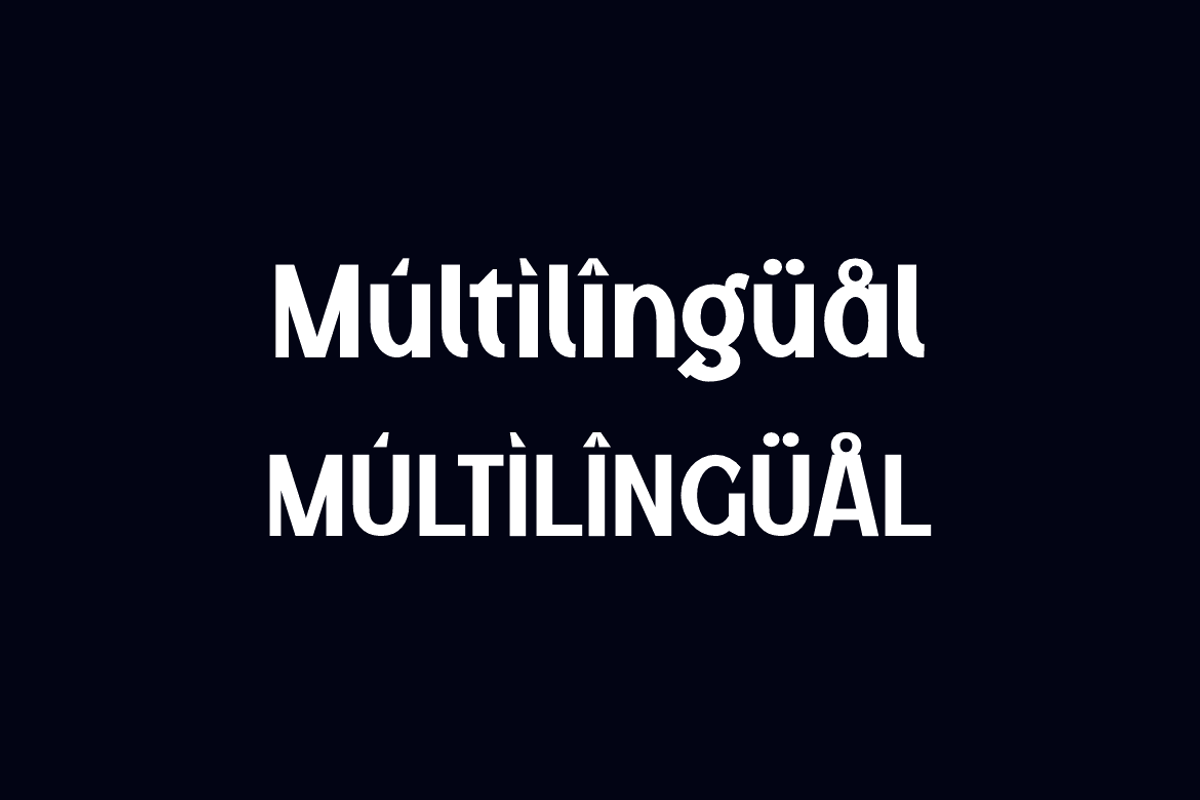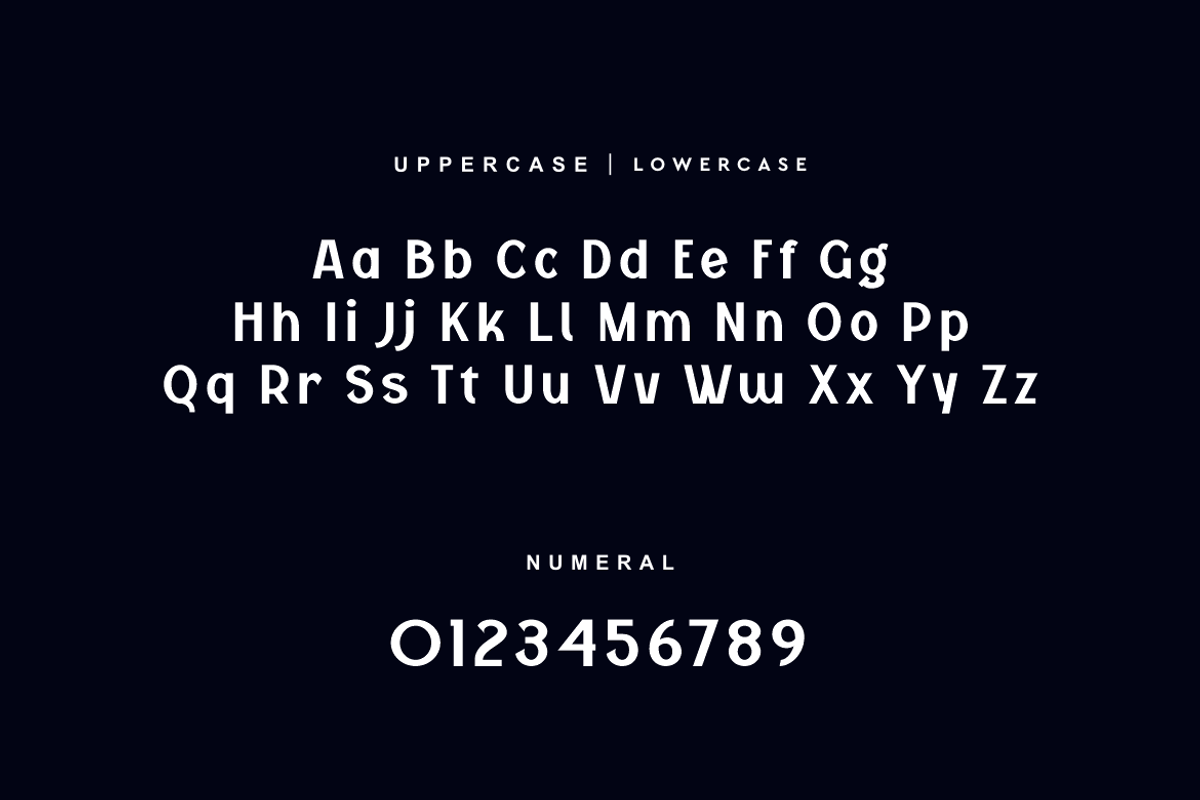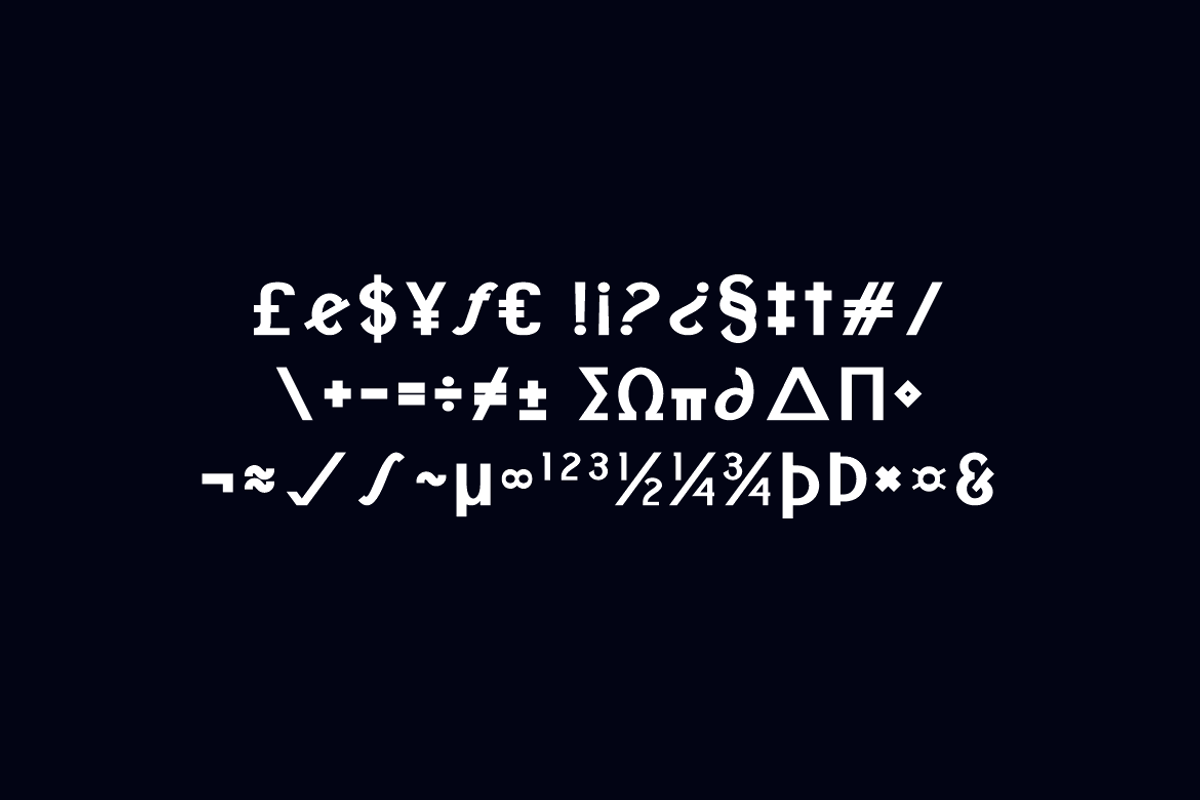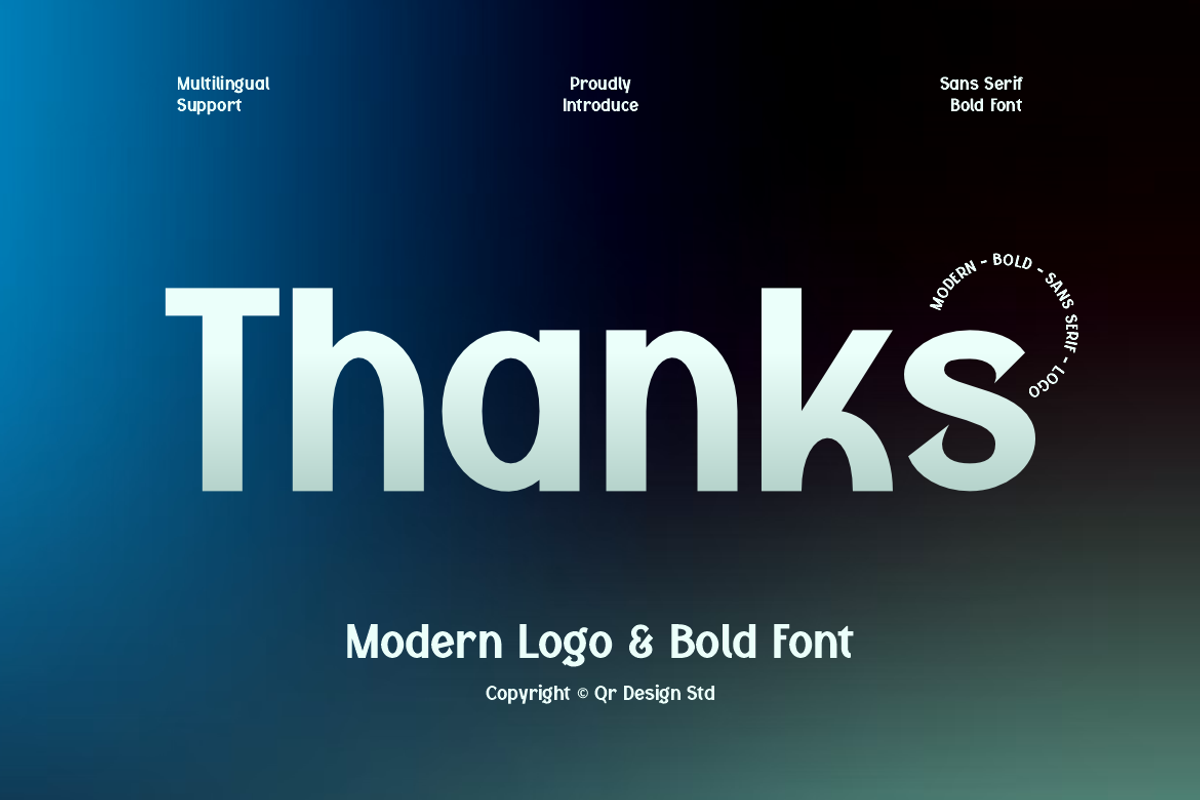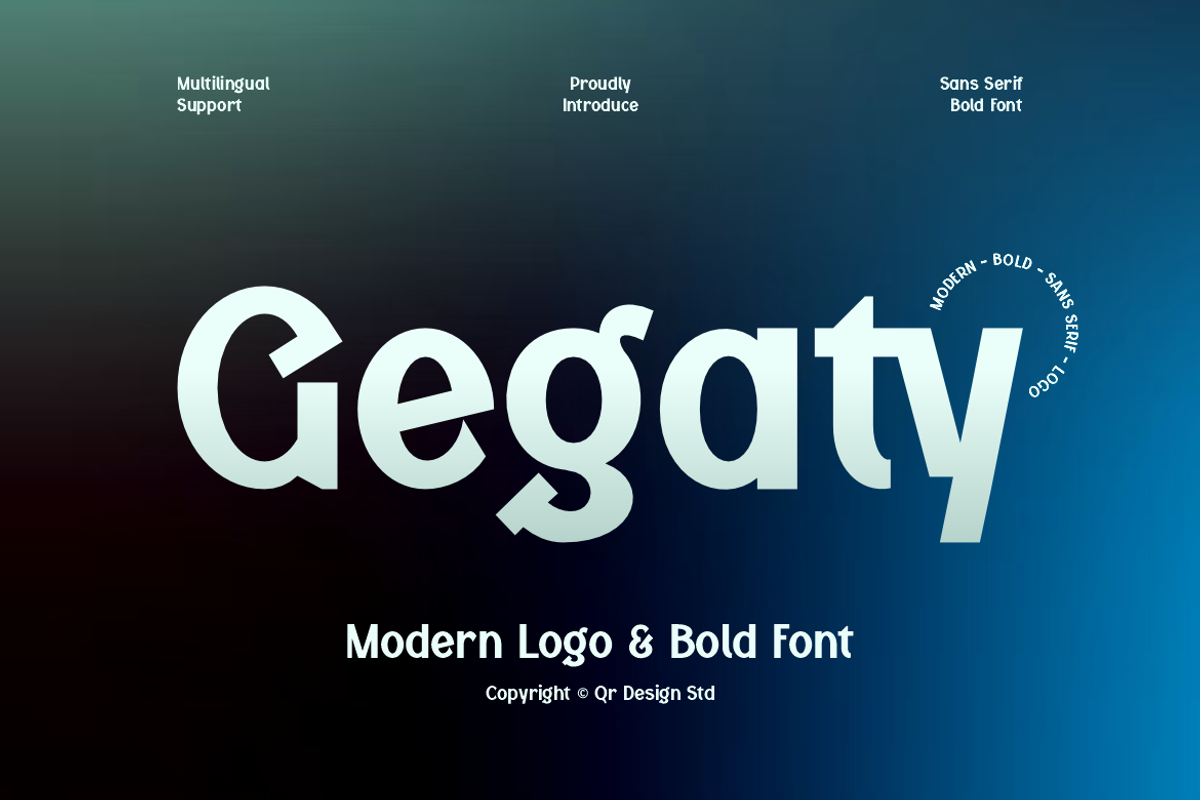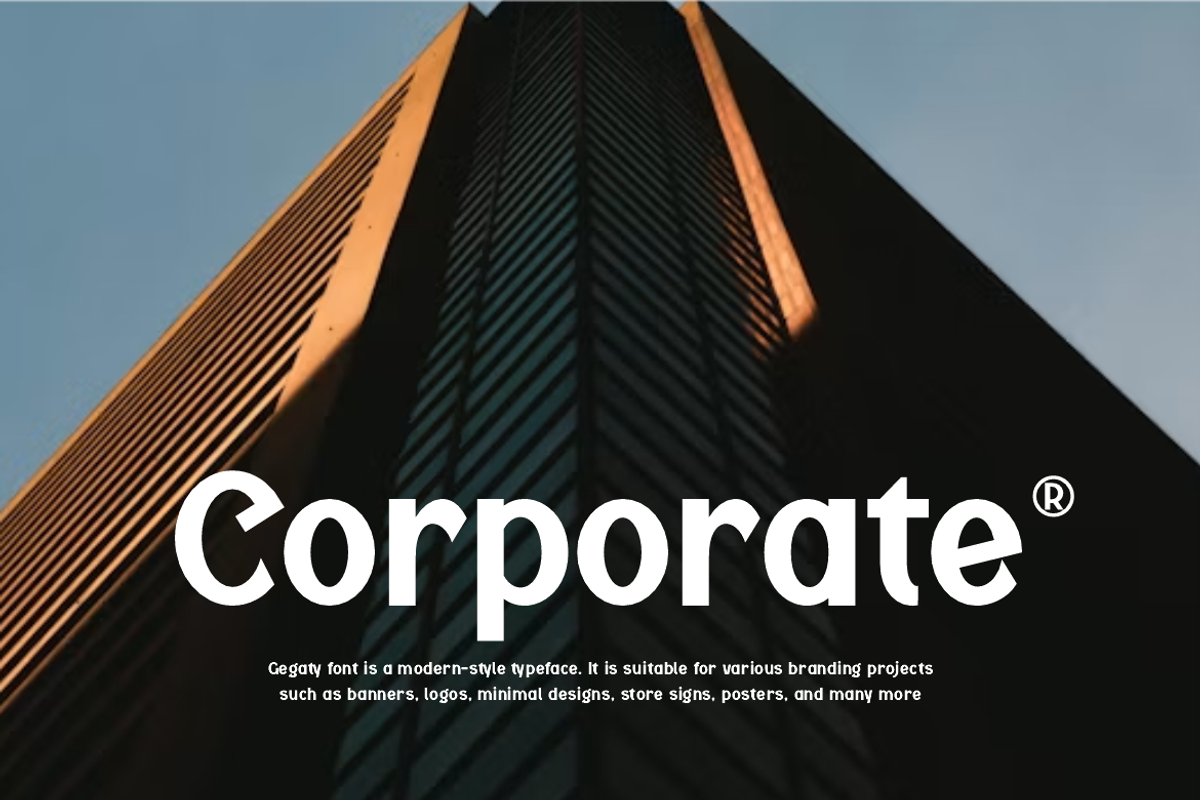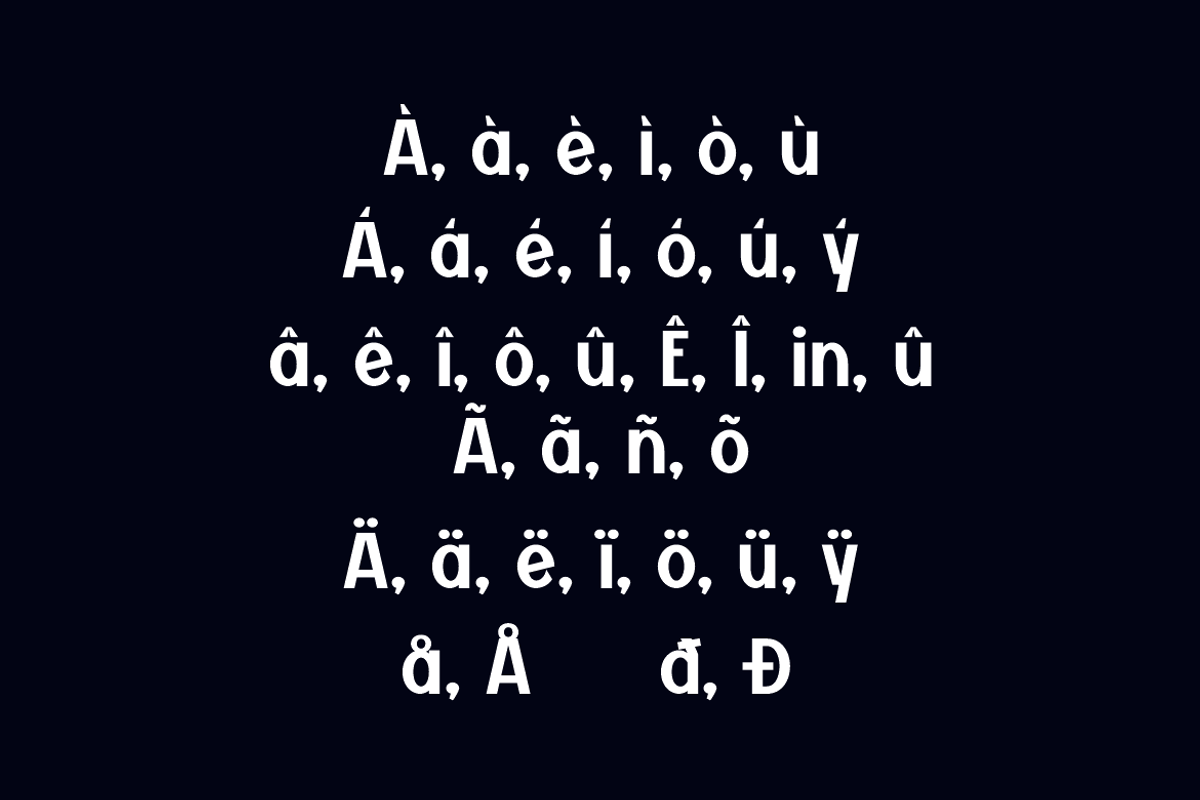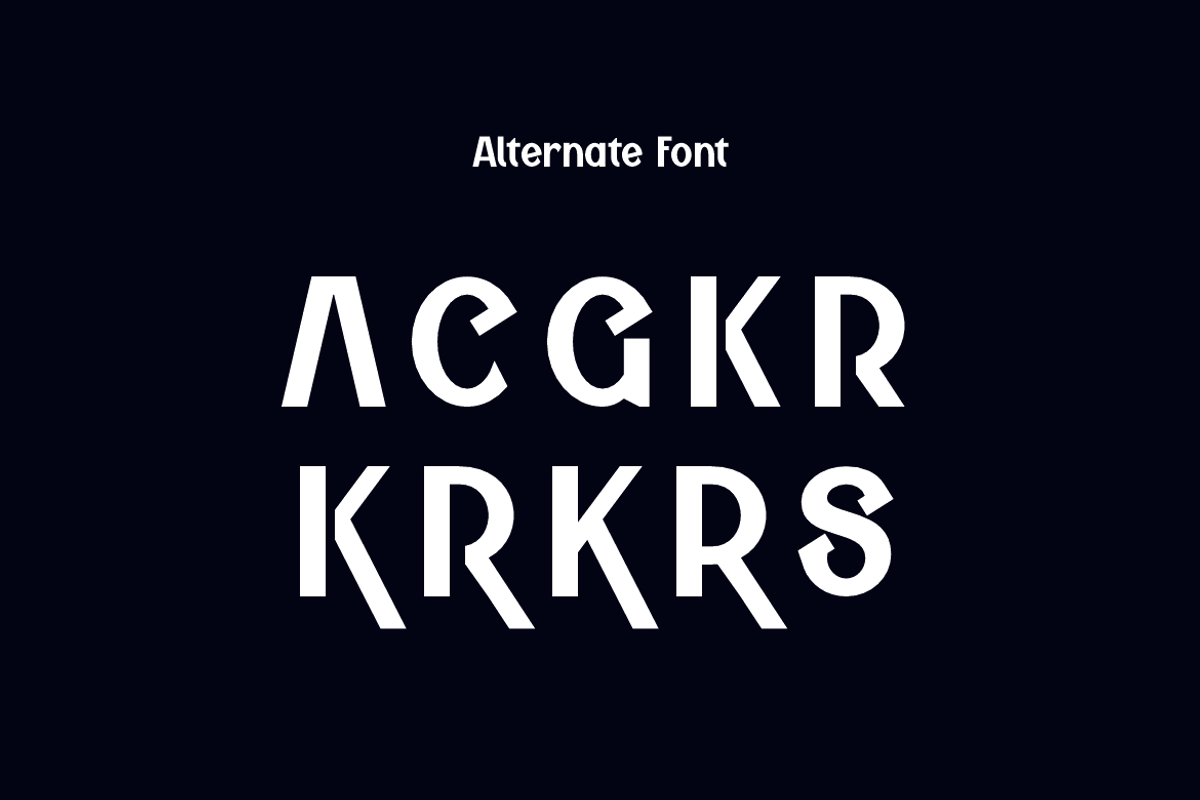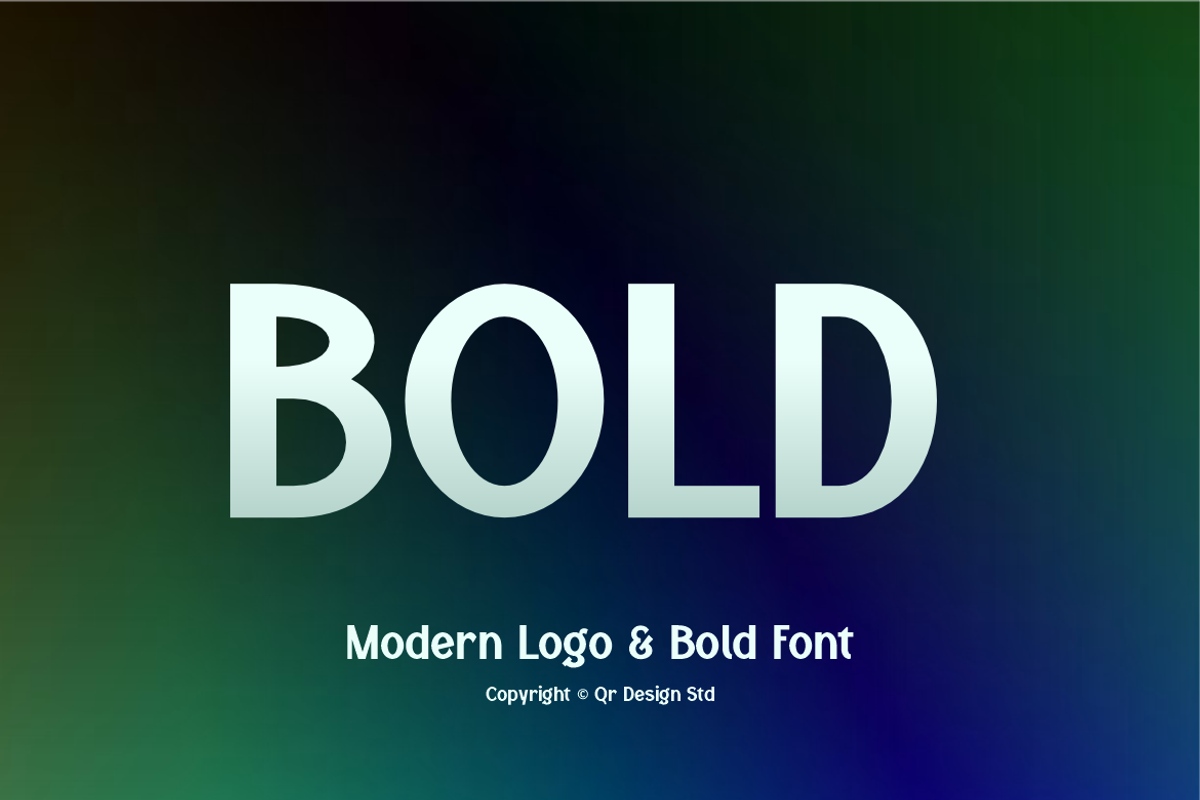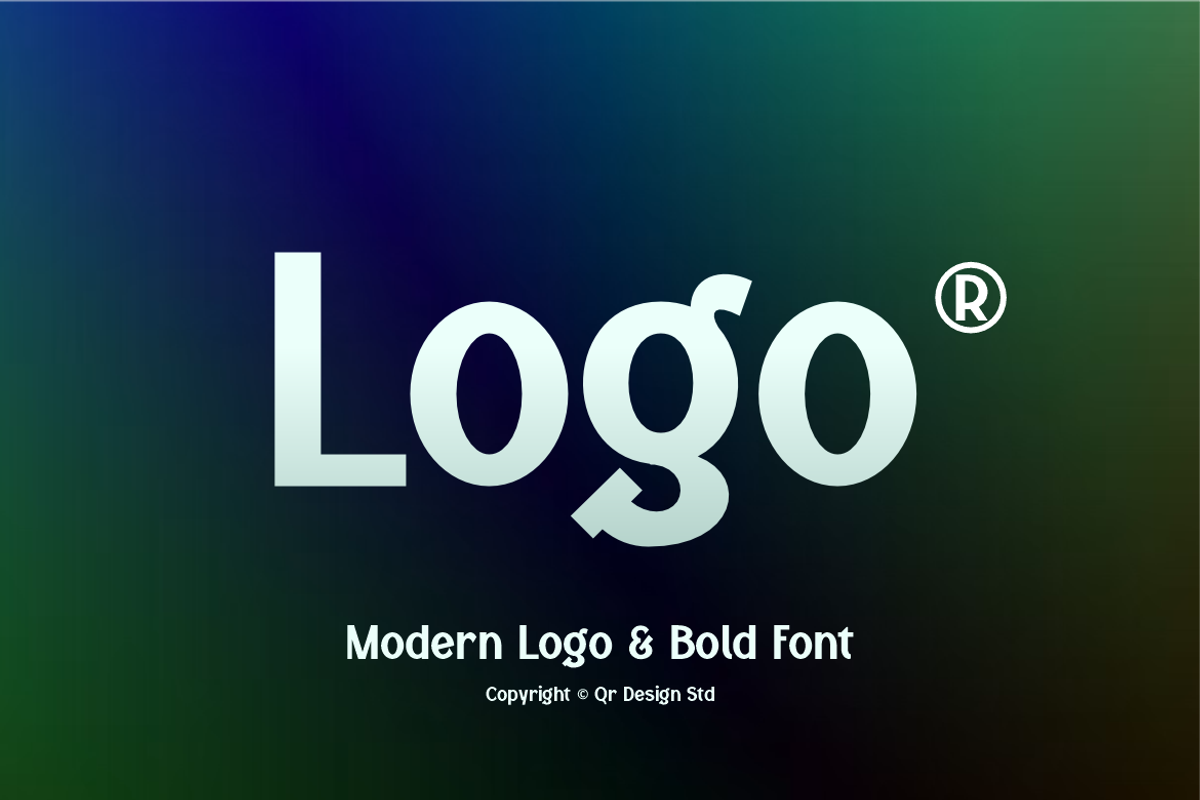
Gegaty - Logo Bold Font
Gegaty Font is a bold and authentic display typeface.
It’s perfect for various branding projects such as logos, modern designs,
and more. This font stands out beautifully in a wide range of contexts.